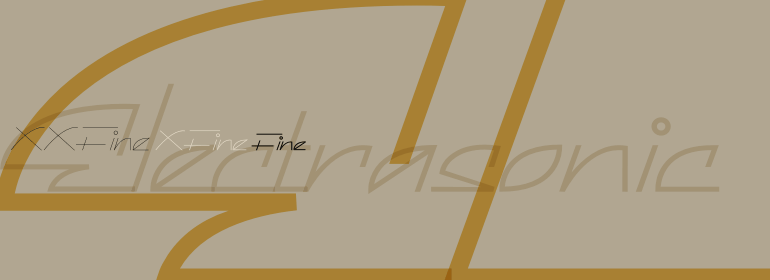
Electrasonic Free Download
Electrasonic Font Free Download
If you want your designs to buzz with energy and futuristic vibes, Electrasonic Font Free Download is the perfect pick. This sleek, techno-inspired font features sharp angles and clean lines that bring a modern, digital edge to your projects. Ideal for technology brands, music events, gaming graphics, and digital interfaces.
Electrasonic Font Free Download combines readability with a high-tech aesthetic, making your headlines and logos pop with dynamic style. Whether you’re creating posters, websites, or product packaging, this font adds an electrifying touch that grabs attention instantly.
With its futuristic design, Electrasonic works great across digital and print media, making it a versatile choice for creatives pushing the boundaries of modern design.
In summary, Electrasonic Font Free Download is a bold and vibrant font to power up your projects. Try it free for testing, and when ready, grab the commercial license to unleash its full potential.